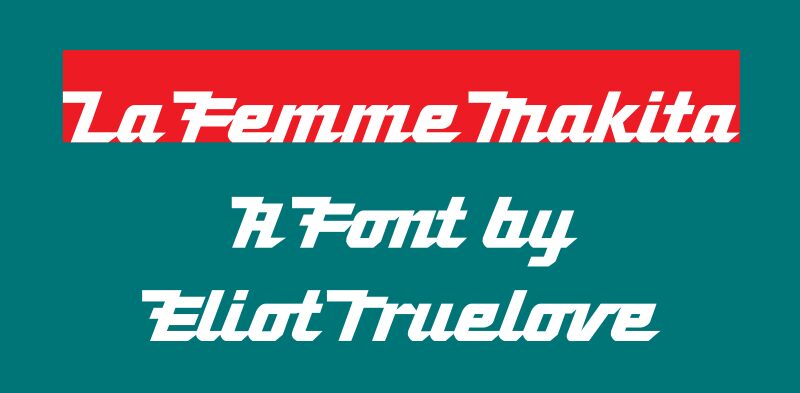
La Femme Makita
La Femme Makita font by Eliot Truelove is a techno-inspired display font with expanded width and sleek look. A creative work based on the logo of the power tool brand “Makita”, it features expanded letters designed in an engaging style with retro influences. With its futuristic tones, geometric elements, and high-tech feel, this font is best suited for attracting attention as well as securing appreciation.